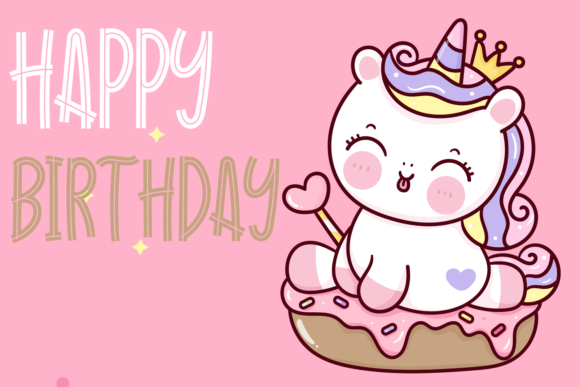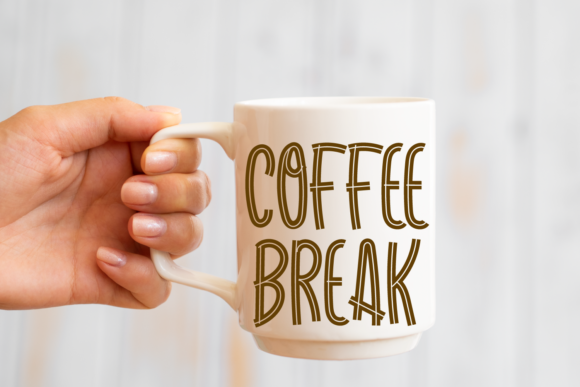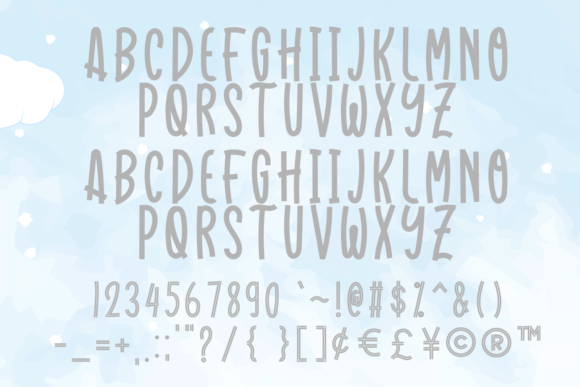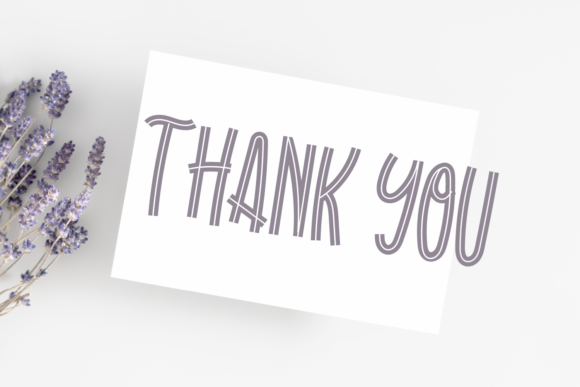
Introduction to Kawaii Unicorn Font
Have you ever stumbled upon a font that makes your design project go from meh to magical? That’s exactly what happens when you unleash the whimsical charm of the Kawaii Unicorn Font. This enchanting display font is perfect for adding a touch of fantasy to your creative projects, from menus to posters and flyers.
As designers, we’re always on the lookout for unique design resources that can elevate our work and make it stand out. The Kawaii Unicorn Font is a high-quality addition to any designer’s toolkit, offering endless possibilities for creative expression. With its transparent background, you can easily incorporate it into your designs without any visual clutter.
Whether you’re working on a free download or a paid project, the Kawaii Unicorn Font is a valuable asset that can add a touch of magic to your designs. So, get ready to unleash your creativity and explore the endless possibilities of this stunning font.
Key Features of Kawaii Unicorn Font
- Unique, whimsical design perfect for creative projects, such as children’s books, party invitations, and social media graphics.
- Features a range of characters, including uppercase and lowercase letters, numbers, and special characters, making it a versatile design resource.
- Designed with a high level of detail and resolution, ensuring crisp and clear text even at large sizes.
- Perfect for adding a touch of magic and playfulness to any design project, from logos and branding to digital art and illustrations.
Honest Review: Kawaii Unicorn Font
I recently stumbled upon the Kawaii Unicorn Font and was excited to see if it would live up to its adorable name. As a designer, I’m always on the lookout for high-quality design resources that can help bring my creative projects to life.
Here are some of the things that I liked about the Kawaii Unicorn Font: ✨
- Unique and playful design that’s perfect for kids’ products or feminine branding
However, there are a few limitations to keep in mind: ⚠️
- Some characters may not have a transparent background, which can be a problem for designers who need a seamless design
- The font may not be suitable for all types of design projects, particularly those that require a more serious tone
Overall, I think the Kawaii Unicorn Font is a great addition to any designer’s toolkit. It’s perfect for designers who want to add a touch of whimsy and fun to their creative projects. Just be sure to consider the limitations before using it in your design.
The Kawaii Unicorn Font is a great design resource for creative projects, especially those with a whimsical or magical theme. You can use it for social media graphics, blog posts, or even print materials like flyers and posters. To get the most out of it, use it with a transparent background and combine it with other design elements for a cohesive look.
Is the Kawaii Unicorn Font transparent background compatible?
Yes, the Kawaii Unicorn Font is designed with a transparent background, making it easy to use with images or backgrounds. This allows you to create stunning designs with the font that are both visually appealing and versatile. You can use the font with or without a background image, depending on your design needs.